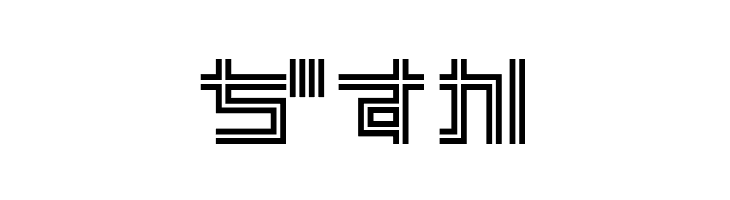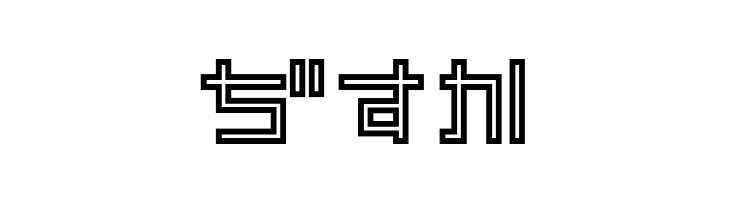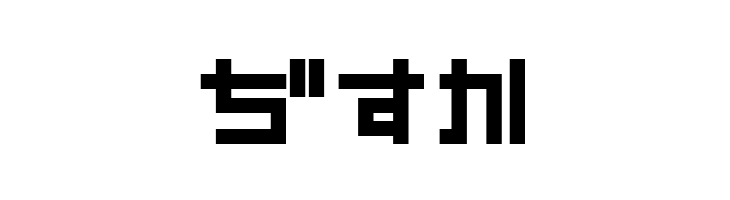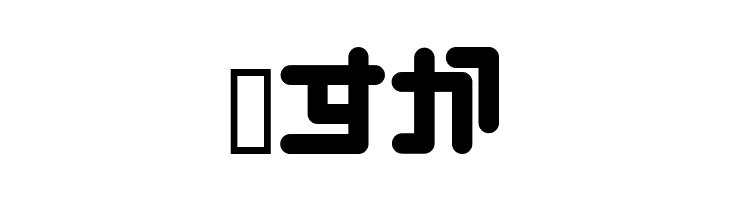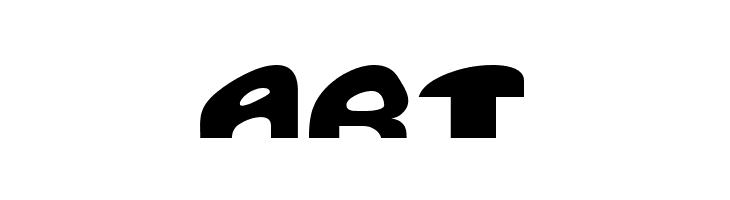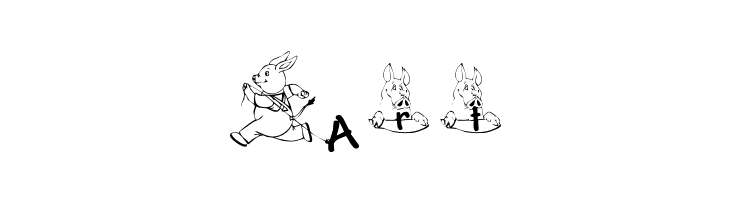
• PicoBlackAl
A bold, rounded font with a playful and modern aesthetic.
• PicoSuperUltraBold
A bold, playful font with rounded, bubble-like characters.
• PicoWhiteAl
A playful, bold font with rounded, bubble-like characters.
• Pigpen
A playful, bold font with rounded, cartoonish characters.
• PIGSTY
A playful, bold font with rounded, cartoon-like characters and whimsical pig faces.
• PIGZ_KG
A playful font with cartoon pig illustrations integrated into each character.
• PinponpanFourHr
A bold, geometric font with a modern, digital aesthetic.
• PinponpanHR
A modern, geometric font with rounded edges and uniform line thickness.
• PinponpanThreeHR
A decorative, geometric font with outlined, hollow characters.
• PinponpanTwohr
A geometric, three-line stroke font with a modern and structured appearance.